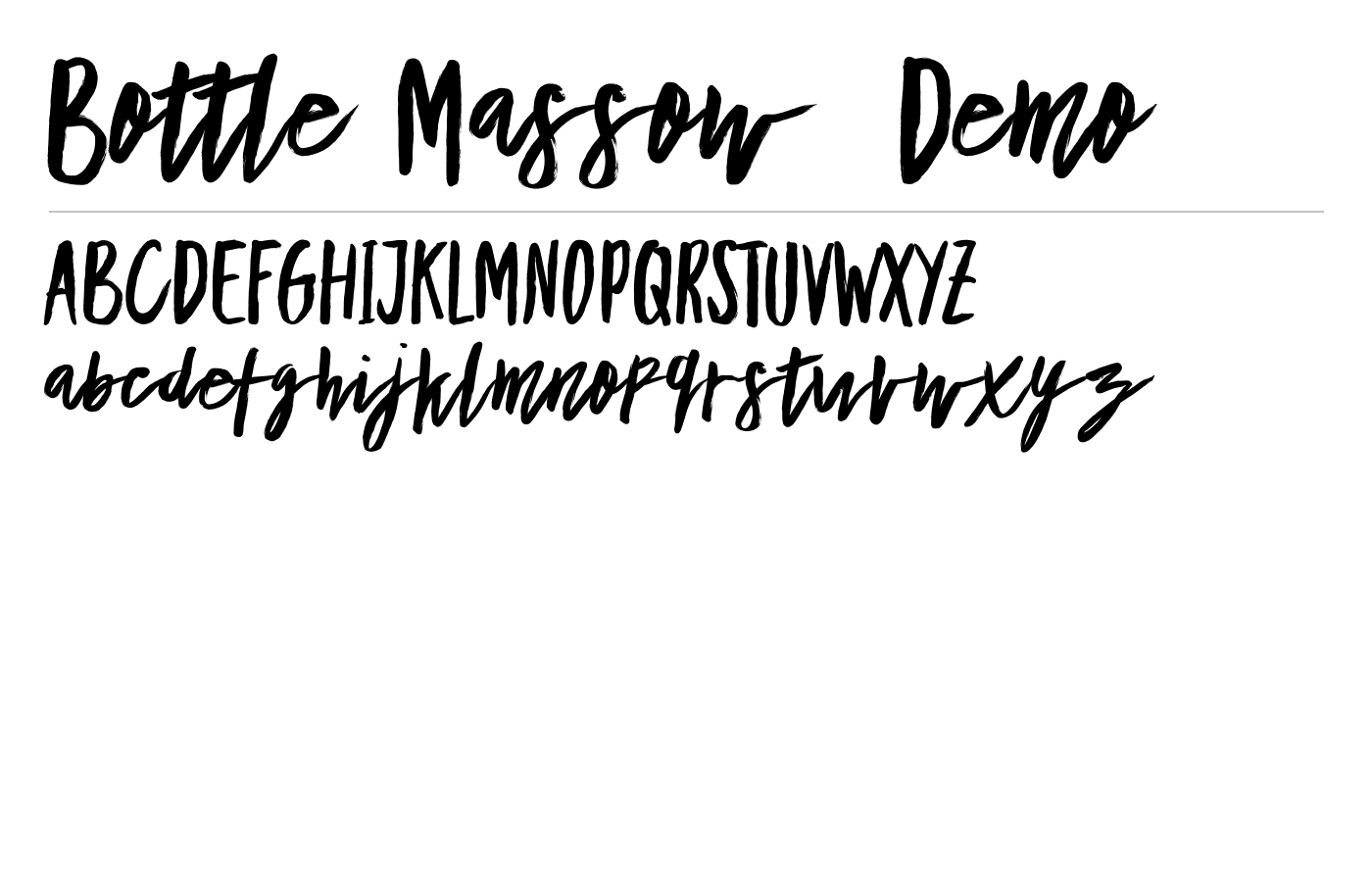
Bottle Massow Demo is a bold and energetic handwritten script font with a casual, brushstroke style that feels lively and approachable. Its textured strokes and lively letterforms make it perfect for adding a personal, creative touch to branding, packaging, and headline designs. This font works best where a spontaneous and artistic vibe is desired, giving projects a warm and authentic character.
Bottle Massow Demo Font
About Bottle Massow Demo Font
| Font family | Bottle Massow Demo Font |
| Designer | MaulanaCreative |